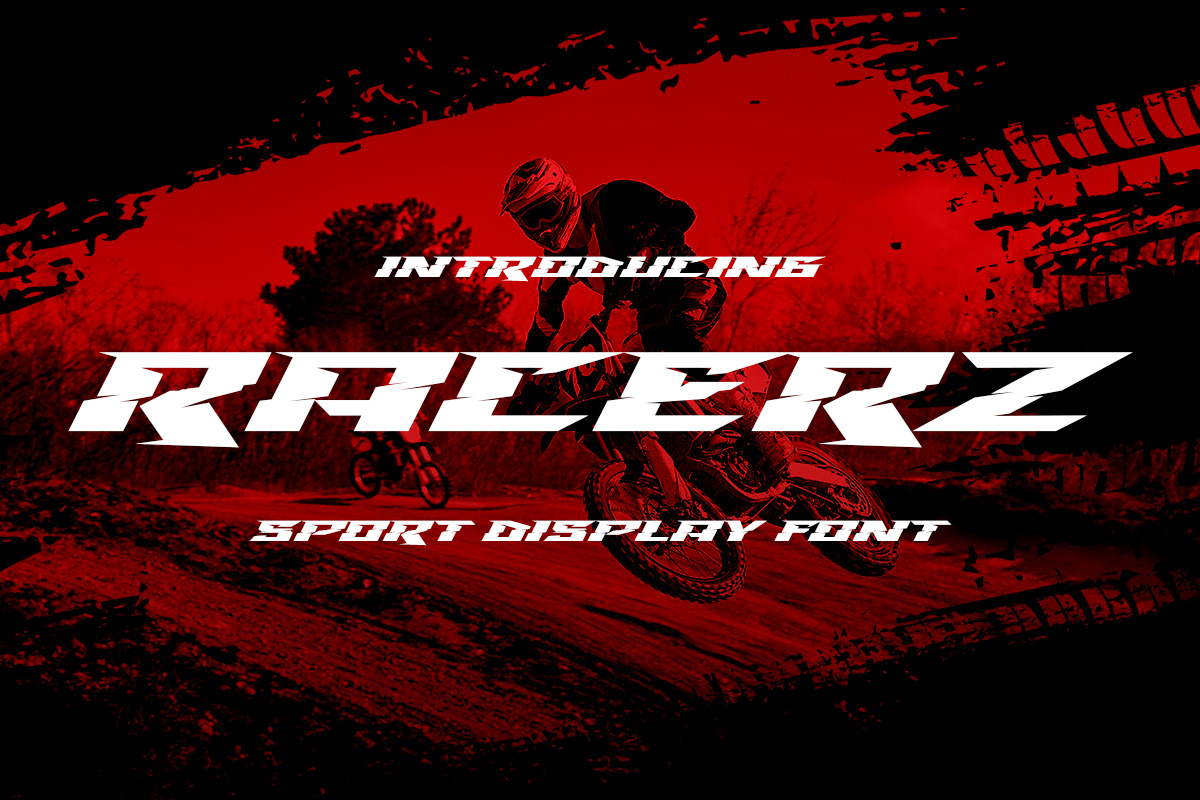
Racerz - Sport Display Font
Introducing Racerz - Sport Display with strong and Sport nuances. very suitable for the title, logo, typography, clothes, magazines, brochures, packaging and much more for your design needs, making your designs more modern and professional